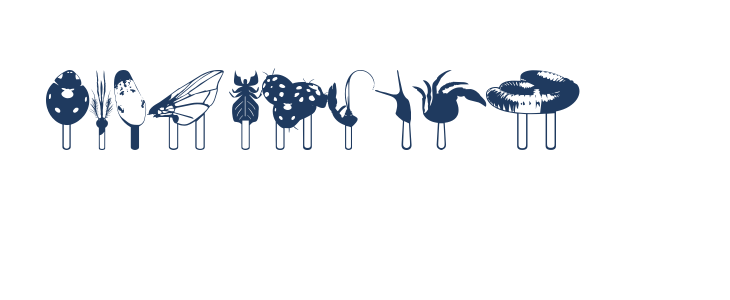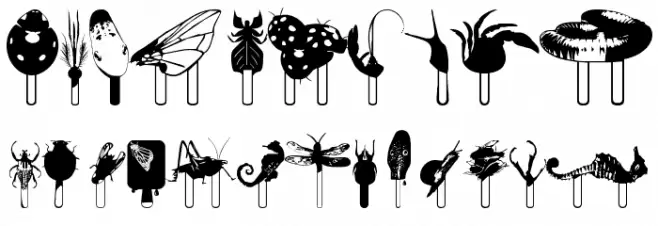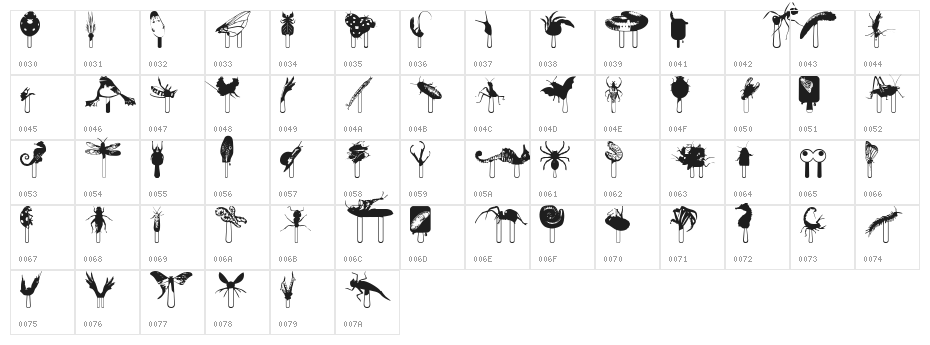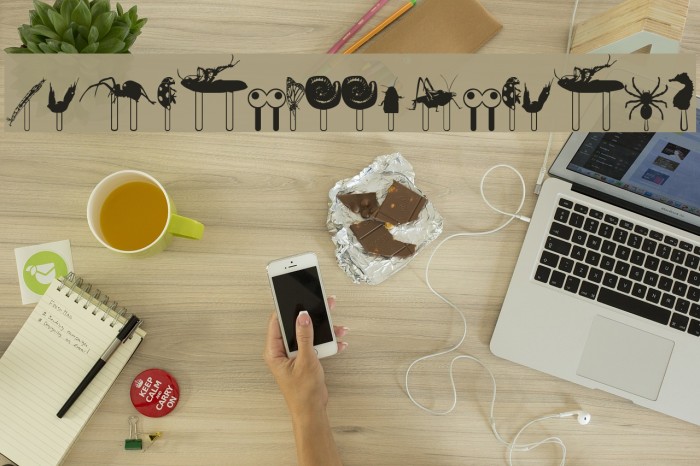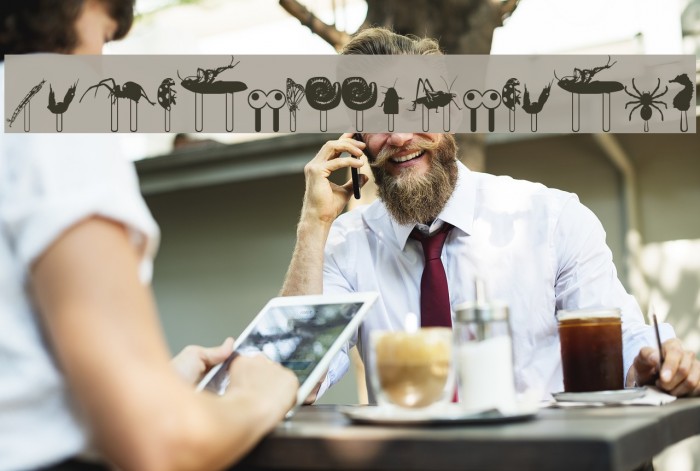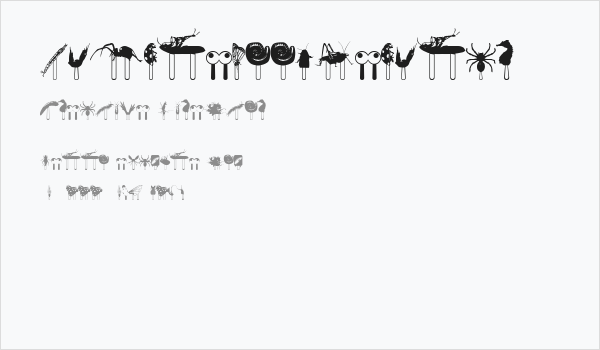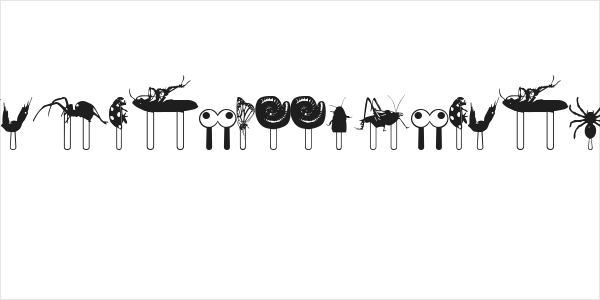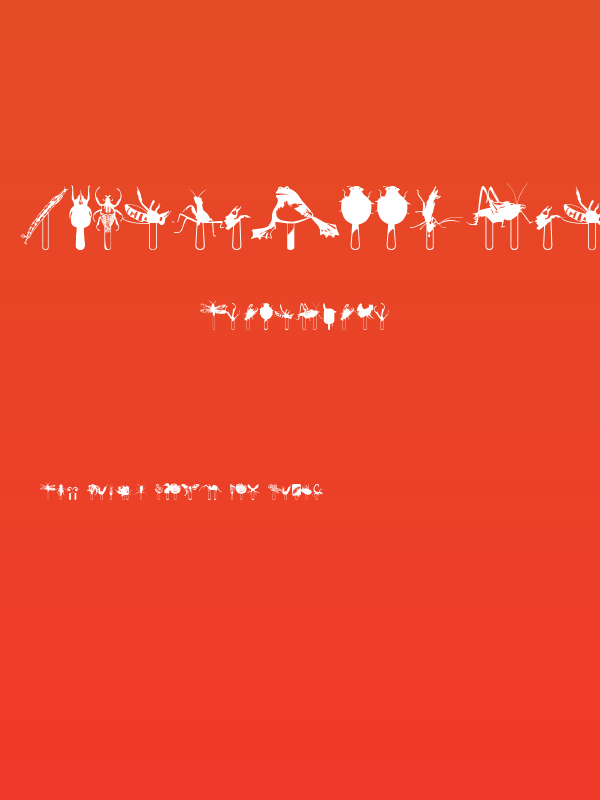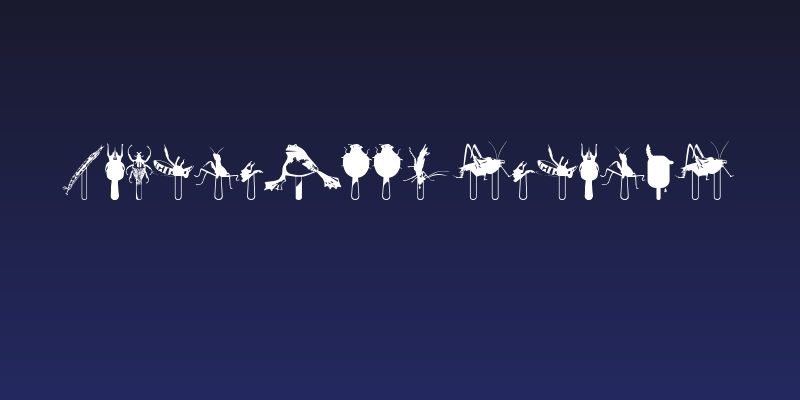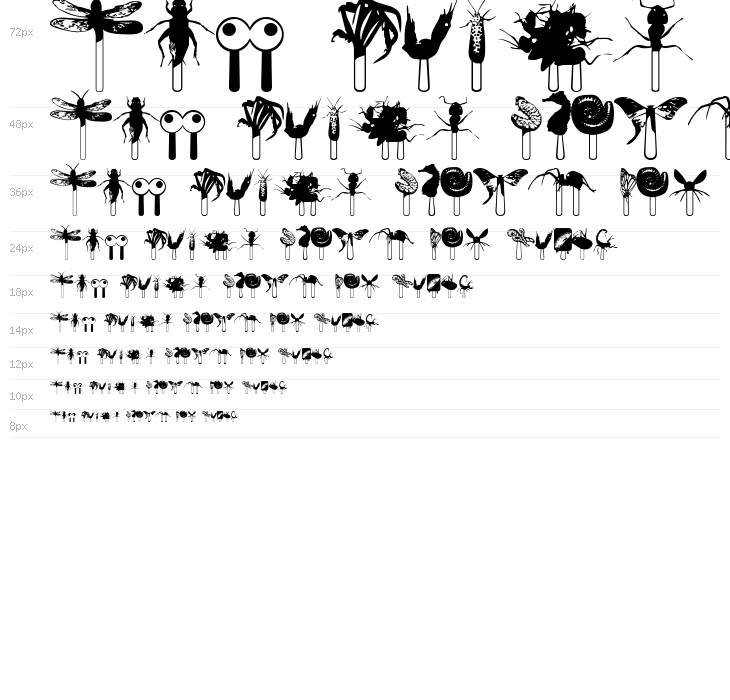
JunglefoodRegular Font
JunglefoodRegular Description
A highly decorative and playful dingbat font featuring silhouettes of various jungle creatures, insects, and plants combined with popsicle stick shapes, creating whimsical and imaginative glyphs.
| Overall Style | Decorative, Whimsical, Playful |
| Use Case | Icons, Decorative elements, Themed graphics |
| Proposed Projects | ChildrenΓ’β¬β’s books, educational materials, themed party invitations, posters, creative branding, and decorative icons. |